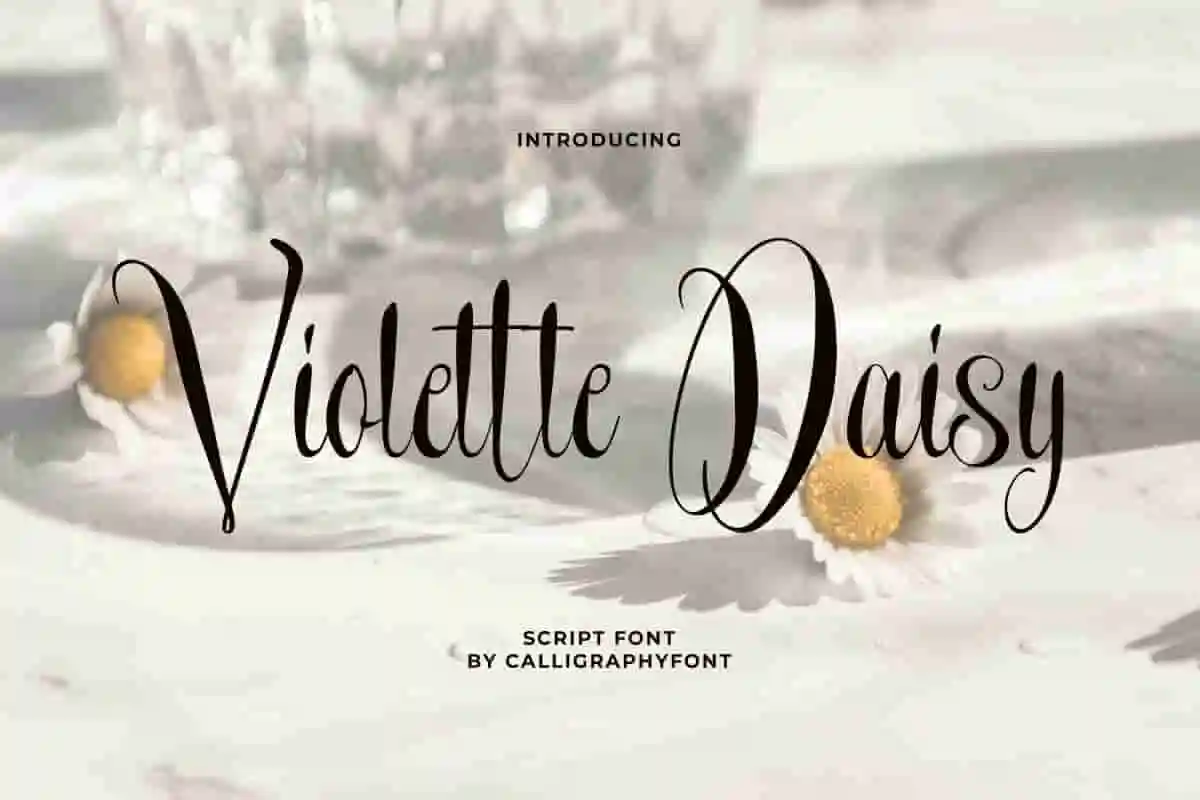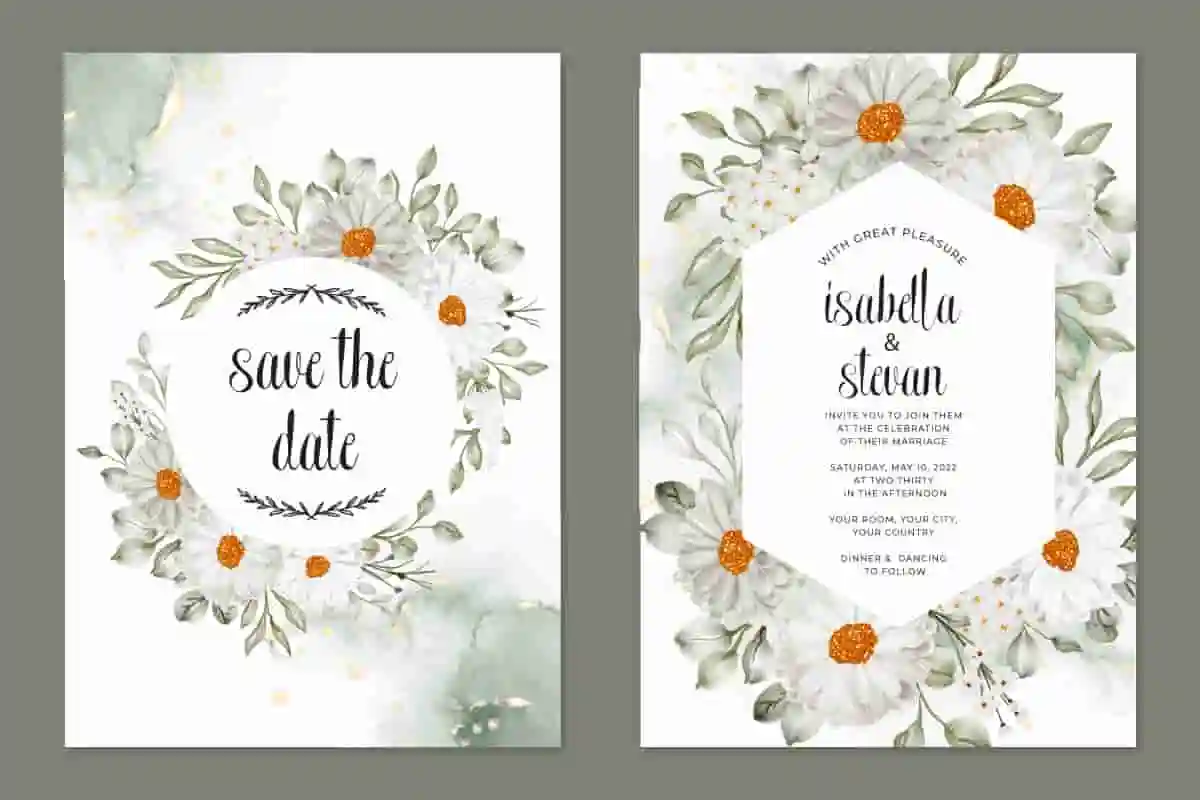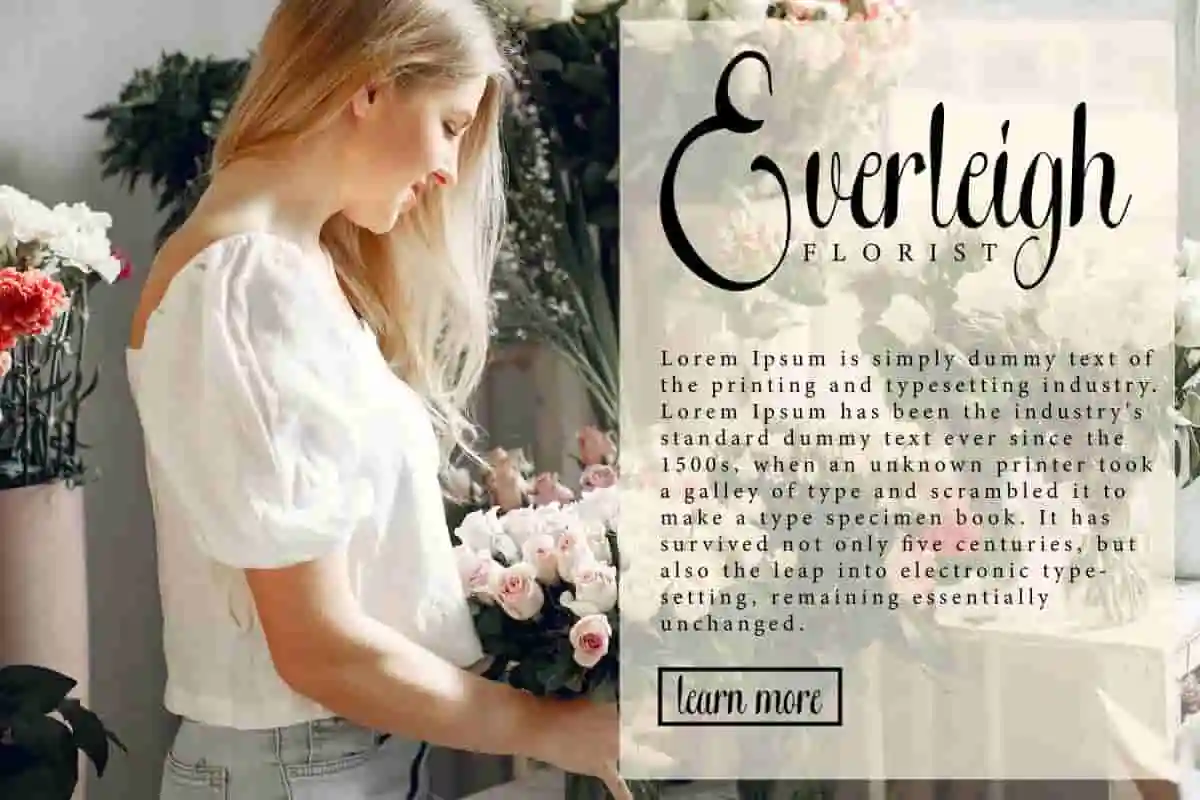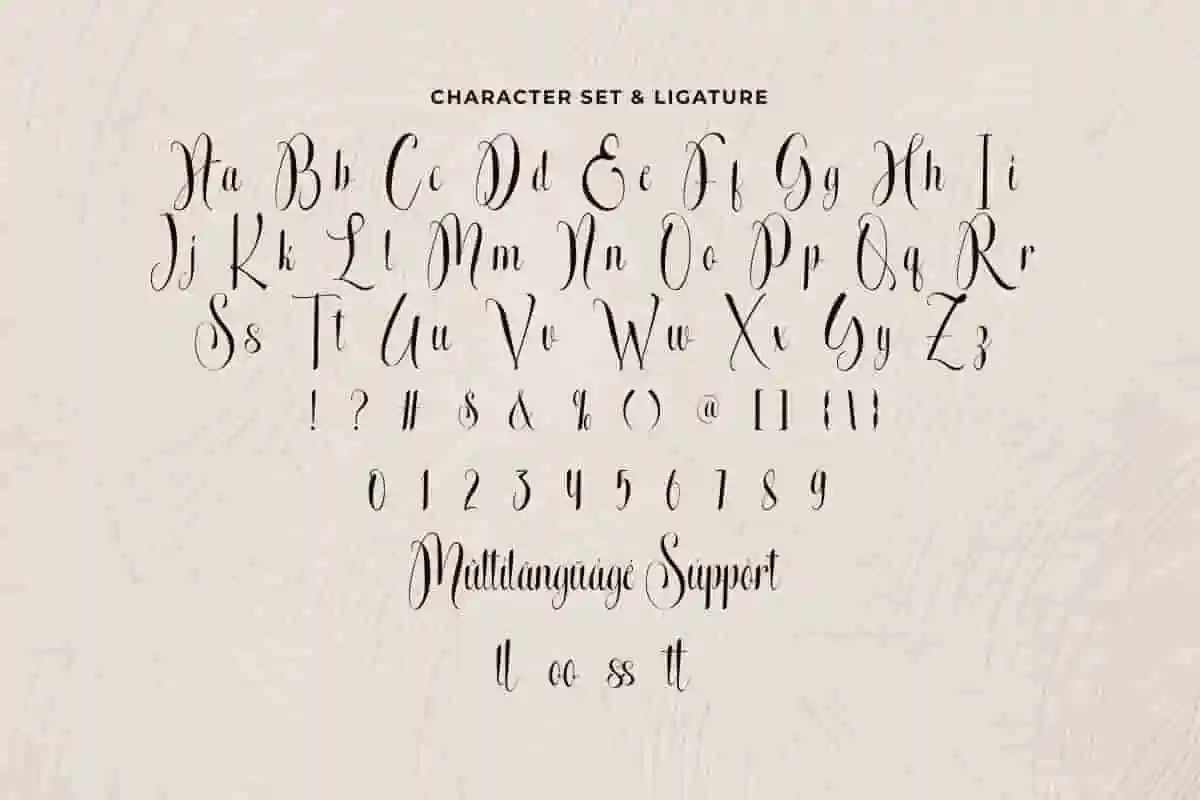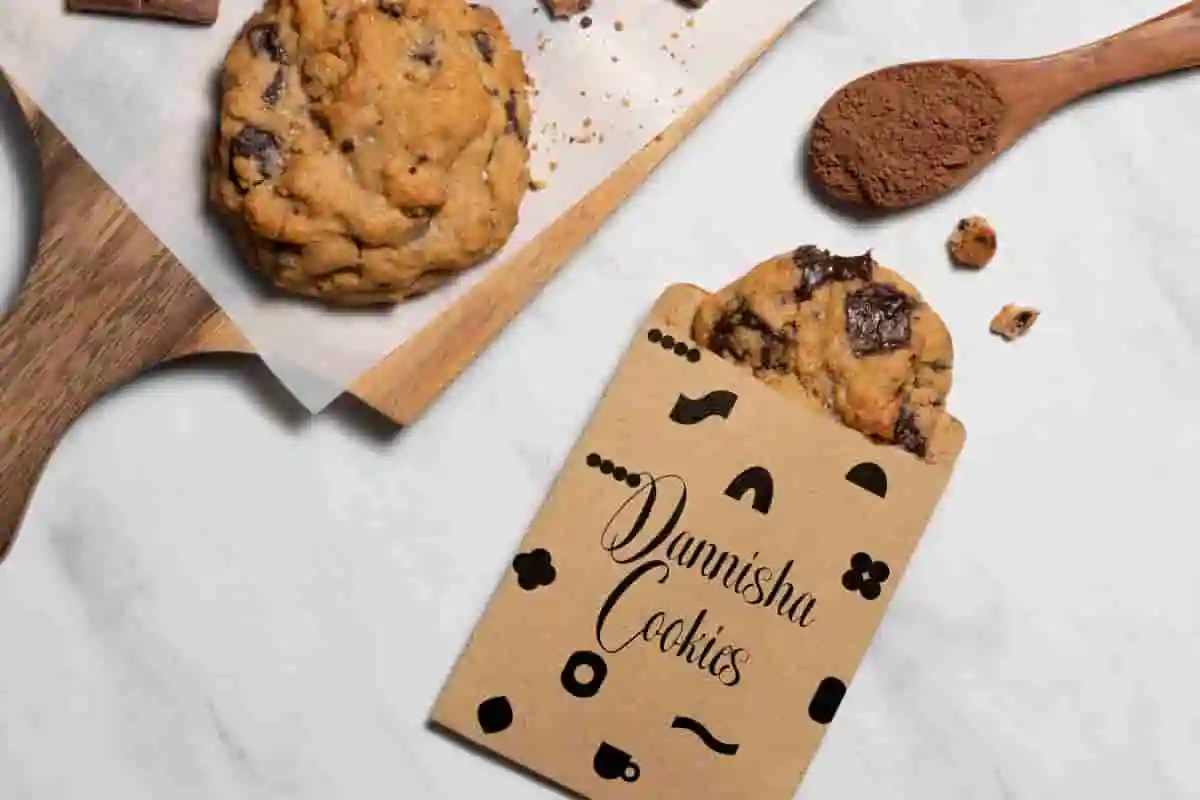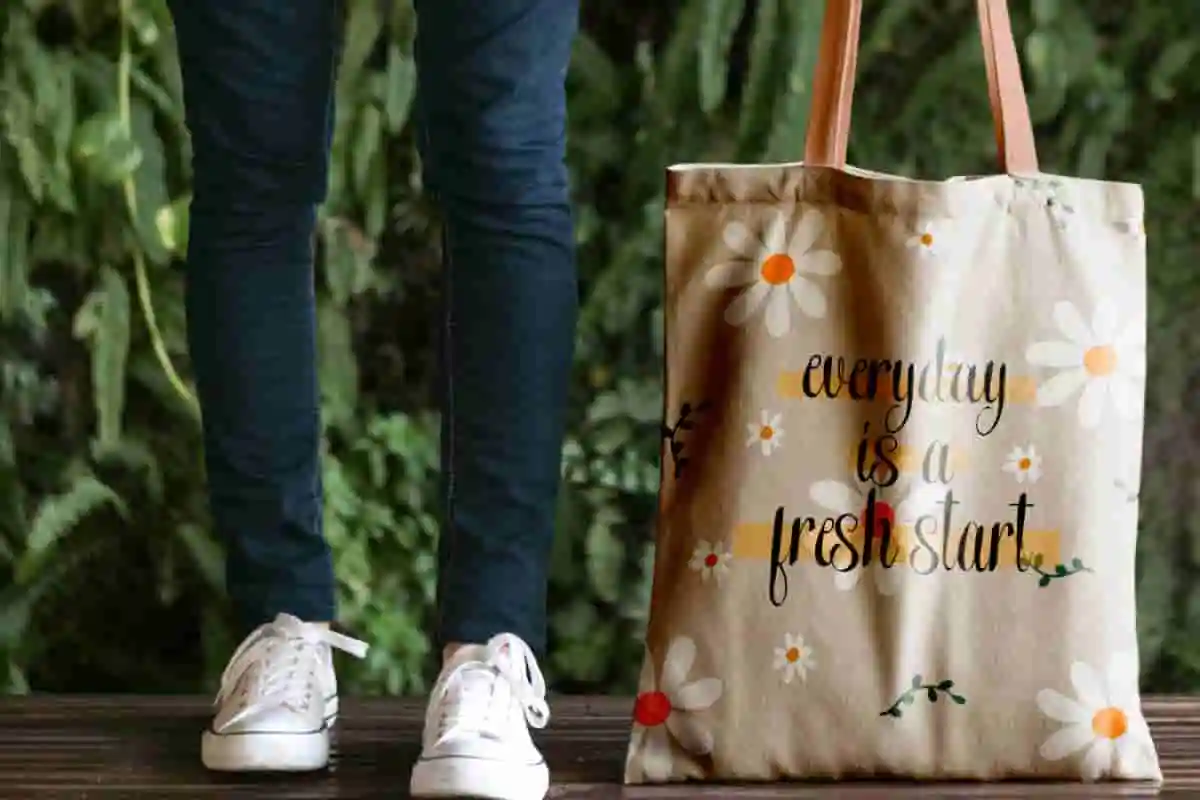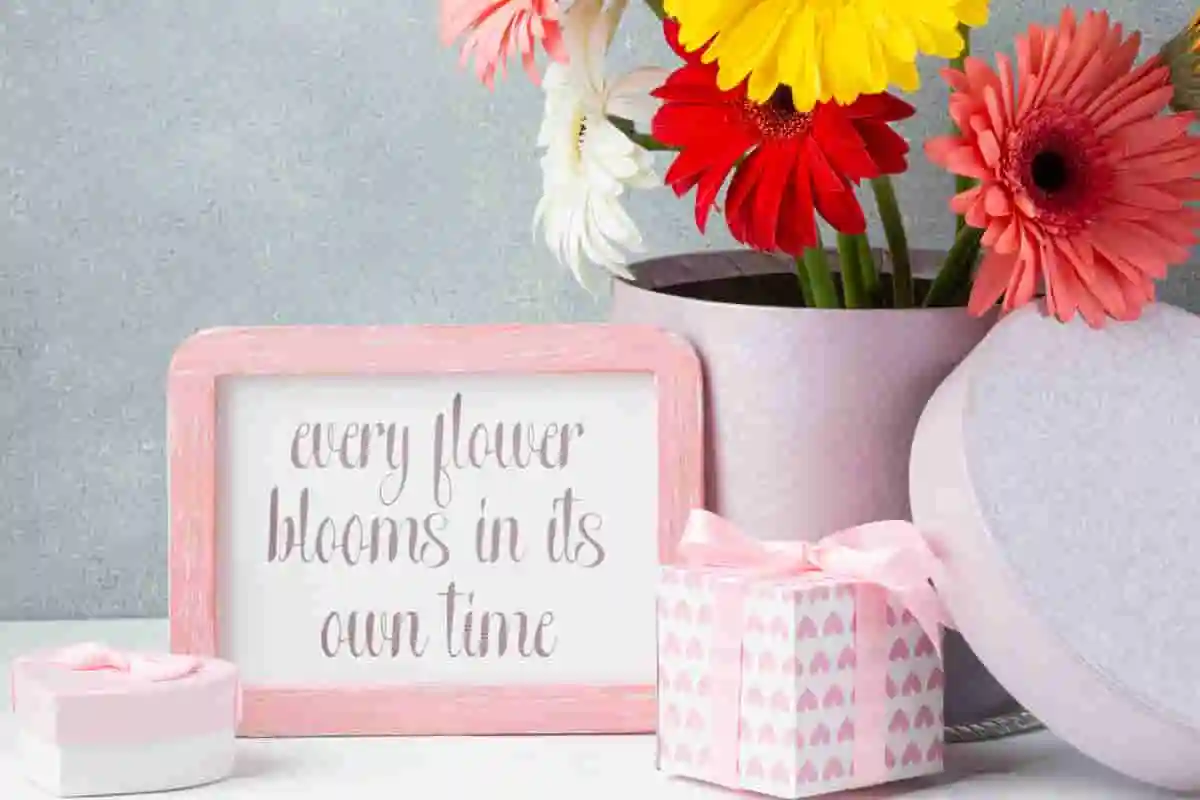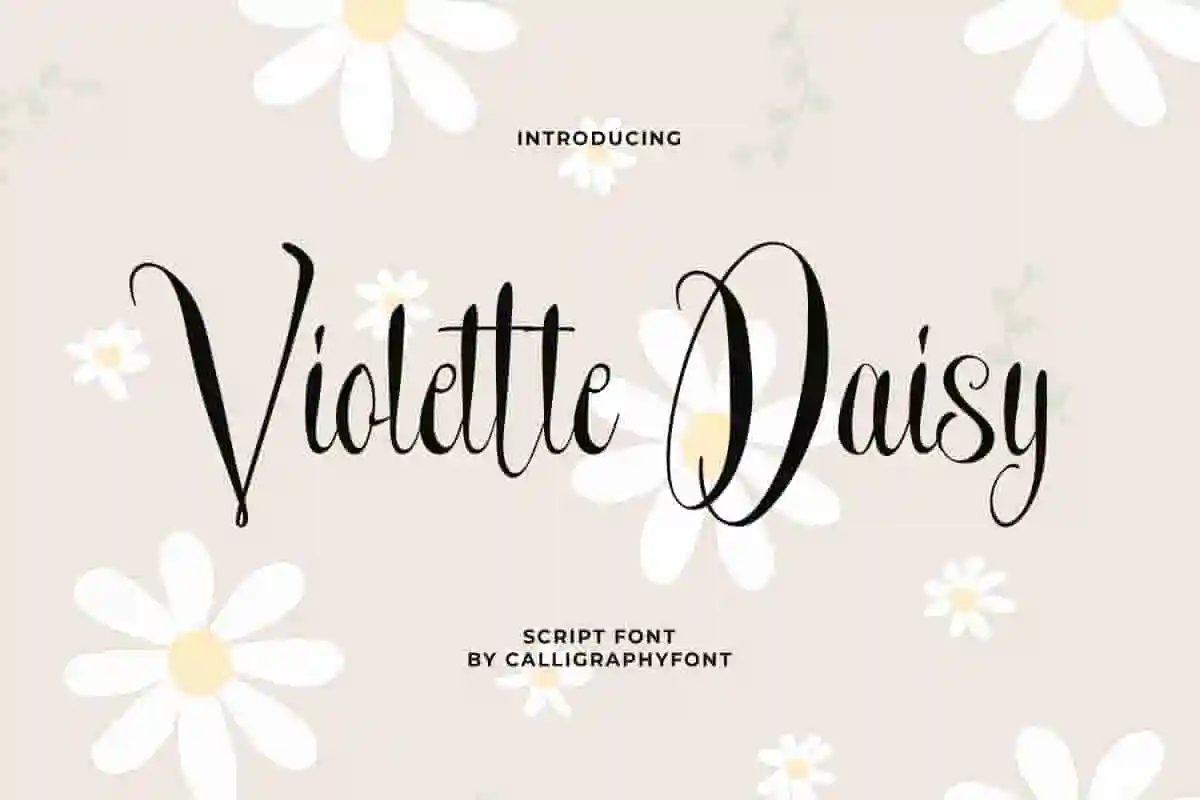
Violette Daisy Font
Violette Daisy Font is a classy script font that takes the concept of beautiful flowers. It will be perfect for fashion magazine cover, pastry shop business, watermark or just used to express words above the background.
Violette Daisy Font is a classy script font with a modern calligraphy style, specially created by CalligraphyFonts. It can enhance various creative projects, such as brand logo, brochure, cover, invitation, magazine catalog, product packaging, quote, screen print, stationery, title, watermark, and other projects that require a touch of elegance from scripts.
Bring your creative projects to life with Violette Daisy Calligraphy Font, a beautifully designed typeface that blends elegance with a playful modern twist. Whether you’re working on wedding invitations, branding, product packaging, greeting cards, or social media graphics, this font is crafted to make your designs stand out with grace and personality.
The Violette Daisy Calligraphy Font features smooth curves, stylish strokes, and an inviting flow that captures attention instantly. Its delicate yet bold presence makes it versatile enough for both personal and professional use. From romantic calligraphy-inspired projects to trendy modern layouts, this font adds that special spark you’ve been searching for.
Designers love fonts that are both creative and easy to use. That’s exactly what Violette Daisy Calligraphy Font offers: readability, elegance, and unique flair all in one. It pairs beautifully with both serif and sans-serif typefaces, giving you the flexibility to experiment and create standout designs.
Whether you’re crafting a heartfelt letter, a standout brand logo, or a chic digital post, Violette Daisy Calligraphy Font ensures your message is delivered with beauty and sophistication. It’s more than just a typeface—it’s a design essential that elevates your entire creative vision.
Violette Daisy Calligraphy Font will be perfect for any industry, such as bakery, boutique, event planner, fashion, florist, handicrafts, pastry, printing, publishing, restaurant, salon, etc. It brings perfection in form and readability, making it a great choice for main text or in combination with other font types.
Violette Daisy Calligraphy Font comes with a full set of Uppercase and Lowercase Basic Characters, Number, a large range of Punctuation and Symbol. This font also equipped with several Ligature characters that will complement and make it perfect. Ready to use both on Windows machine or Mac with simple installations. It’s tested to work well in the Adobe Apps (Illustrator, Adobe InDesign, Adobe Photoshop) CorelDraw, and others. It supports multilingual characters. PUA Encode Characters means you can access all the characters easily – Fully accessible without additional design software.